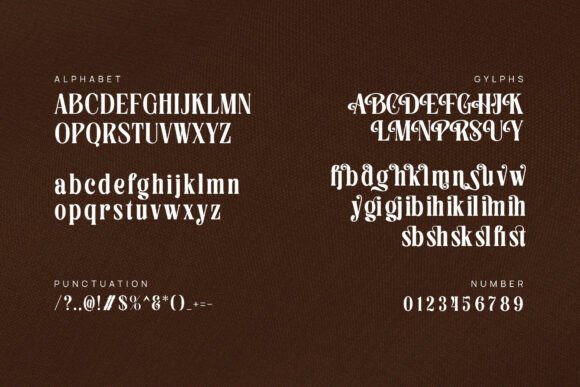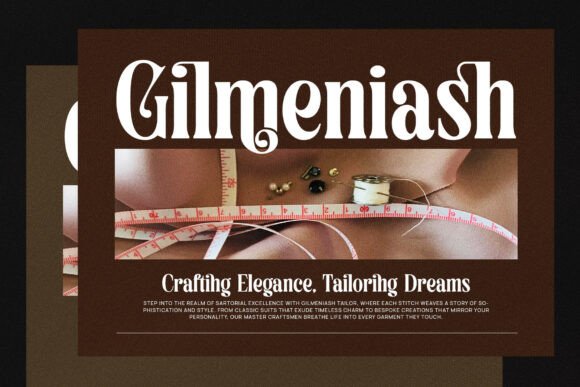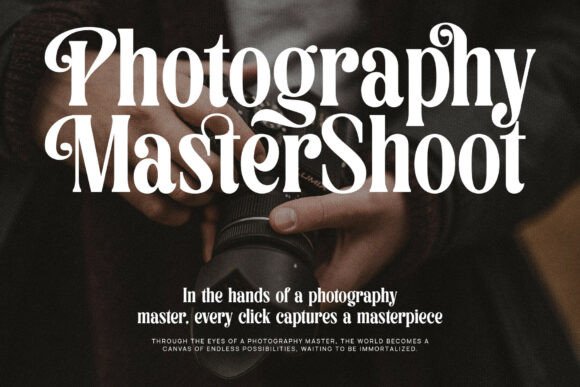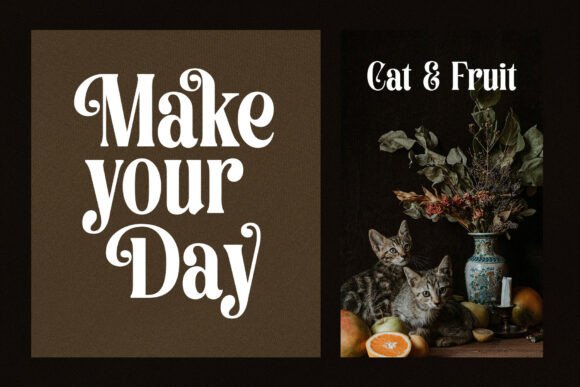
Bishry Font: Elevate Your Designs with Elegance and Boldness
In the world of typography, a font can make or break a design. For those seeking an elegant and bold serif font, look no further than Bishry. This versatile font is perfect for creating stunning wedding invitations, beautiful stationery art, eye-catching social media posts, and more. In this article, we’ll dive into the world of Bishry Font, exploring its features, uses, and benefits for designers and crafters.
What is Bishry Font?
Bishry is a serif font that exudes elegance and sophistication. Its bold and refined style makes it perfect for a wide range of design applications. Whether you’re creating a wedding invitation, a social media post, or a piece of stationery art, Bishry is sure to impress. Its classic serif design ensures that it will complement any design aesthetic, from traditional to modern.
Key Features of Bishry Font
- Elegant and Bold: Bishry’s unique blend of elegance and boldness makes it perfect for creating eye-catching designs that demand attention.
- Versatile: Bishry is incredibly versatile, making it suitable for a wide range of design applications, from wedding invitations to social media posts.
- Serif Design: Bishry’s classic serif design ensures that it will complement any design aesthetic, from traditional to modern.
- Easy to Read: Despite its bold style, Bishry is easy to read, making it perfect for body text and headlines.
Uses of Bishry Font
Bishry’s versatility makes it perfect for a wide range of design applications. Here are a few ideas to get you started:
- Wedding Invitations: Create stunning wedding invitations that set the tone for the big day.
- Stationery Art: Add a touch of elegance to your stationery art with Bishry’s refined style.
- Social Media Posts: Create eye-catching social media posts that demand attention with Bishry’s bold style.
- Logos and Branding: Use Bishry to create a bold and elegant logo that reflects your brand’s personality.
- Packaging Design: Add a touch of sophistication to your packaging design with Bishry’s classic serif style.
Benefits of Using Bishry Font
So why choose Bishry Font for your next design project? Here are a few benefits to consider:
- Unique Style: Bishry’s unique blend of elegance and boldness ensures that your designs will stand out from the crowd.
- Time-Saving: With Bishry, you can create stunning designs in no time, thanks to its easy-to-read style and versatile design.
- High-Quality: Bishry is a high-quality font that is designed to deliver exceptional results, every time.
Tips for Using Bishry Font
To get the most out of Bishry Font, here are a few tips to keep in mind:
- Experiment with Sizes: Bishry looks great in a variety of sizes, so don’t be afraid to experiment to find the perfect size for your design.
- Pair with Other Fonts: Bishry pairs well with a range of other fonts, so try pairing it with a sans-serif font for a bold and elegant look.
- Use it Boldly: Bishry is a bold font, so don’t be afraid to use it boldly in your designs to create a lasting impression.
| Author | Ariya Works Studio |
In conclusion, Bishry Font is an elegant and bold serif font that is perfect for designers and crafters looking to elevate their designs. Its versatile style, classic serif design, and easy-to-read style make it perfect for a wide range of design applications. Whether you’re creating wedding invitations, stationery art, or social media posts, Bishry is sure to impress. So why wait? Try Bishry Font today and see the difference it can make in your designs!